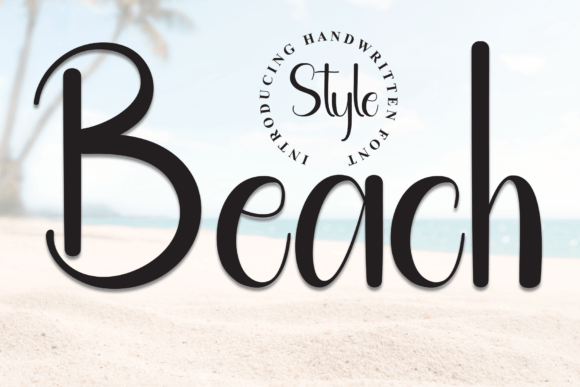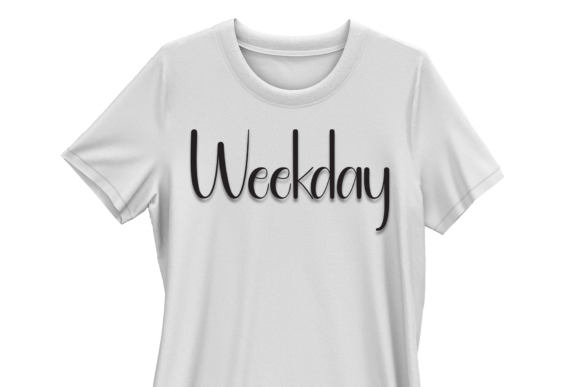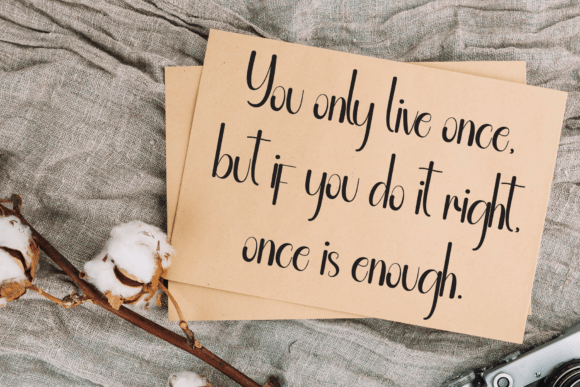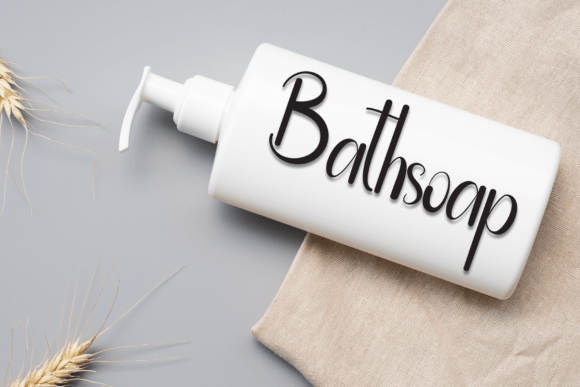
About the Beach Font
Explore the possibilities with Beach Font, a font that offers both beauty and functionality. Beach is a stylish handwritten script font that combines elegance with a modern flair. Its flowing strokes and organic curves bring warmth and sophistication to any project. Ideal for branding, invitations, and social media, this typeface adds a personal, refined touch with effortless charm.